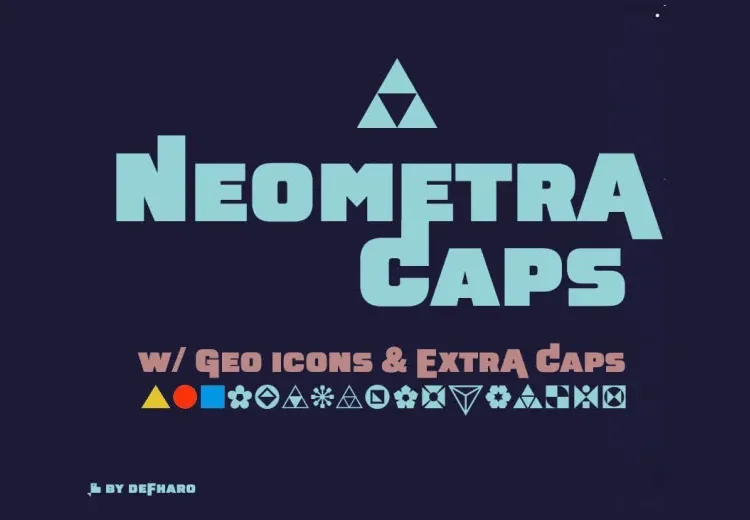
Neometra Caps Font
Neometra Caps is a fresh addition to the sans serif font category, characterized by its thick and nearly square letters, making it perfect for bold and vibrant design projects. This typeface is designed to capture attention and deliver a strong visual impact, ensuring that your work stands out. Its modern aesthetic is ideal for various applications, from branding to advertising.
This font boasts an impressive collection of 784 glyphs, including 31 geometric icons and 52 alternative capital letters. Such versatility allows for greater creative freedom, making it easy to customize your text and elevate your designs. The multiple sets and numbers included in Neometra Caps ensure that you have the tools needed for a wide range of design tasks.
Neometra Caps also features complex OpenType capabilities, which enhance its functionality and readability. These advanced features enable designers to create dynamic layouts without sacrificing clarity, making it an excellent choice for titles, logos, and packaging. The careful attention to detail in its design allows it to maintain a clean and professional appearance across various formats.
Whether you’re working on marketing materials, product labels, or digital content, Neometra Caps is the perfect font to bring your creative vision to life. Its unique style and extensive character set make it a valuable addition to any designer’s toolkit, ready to enhance any project with a modern flair.